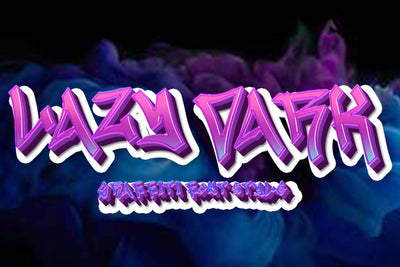
Lazy Dark
"Lazy Dark" is a unique and elegant graffiti font. This font is equipped with uppercase, lowercase, numerals, punctuations and multilingual support. Very suitable for logos, graffiti, banners, posters, prints, branding, wall art, street art, summer, Father's Day, Christmas and others.